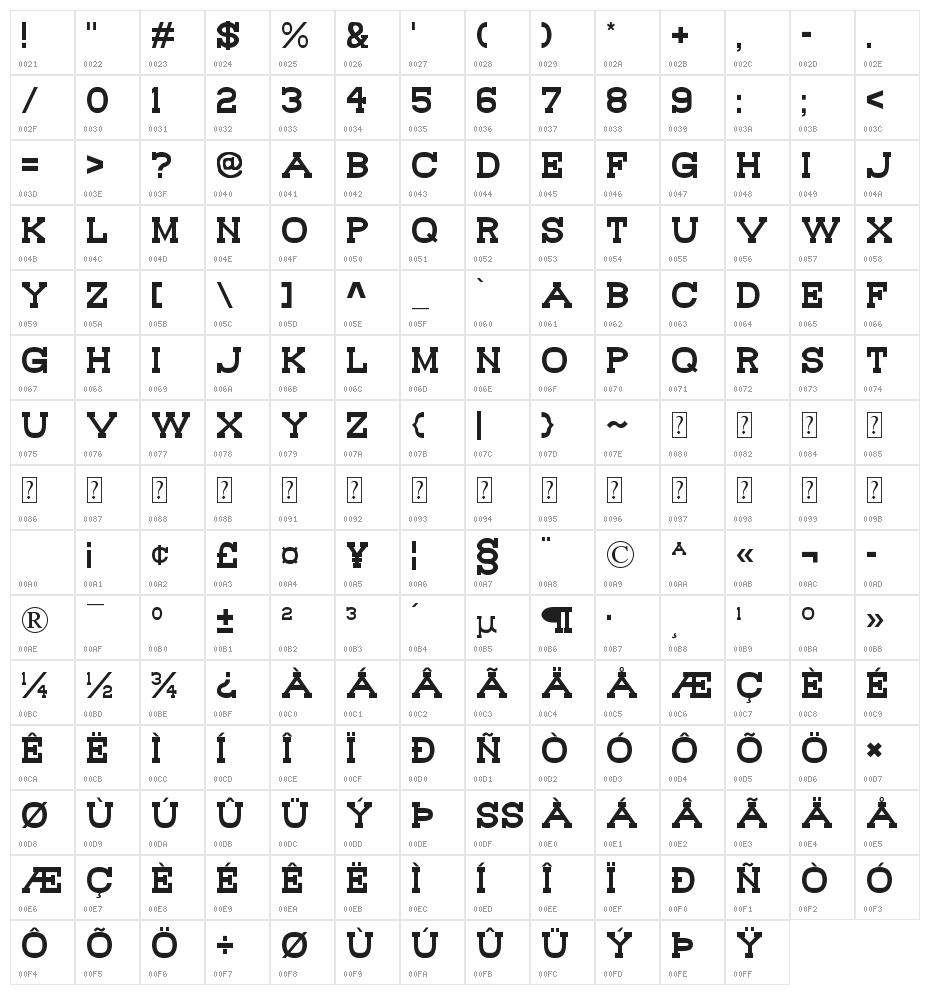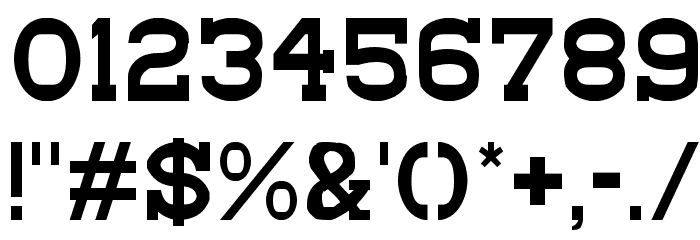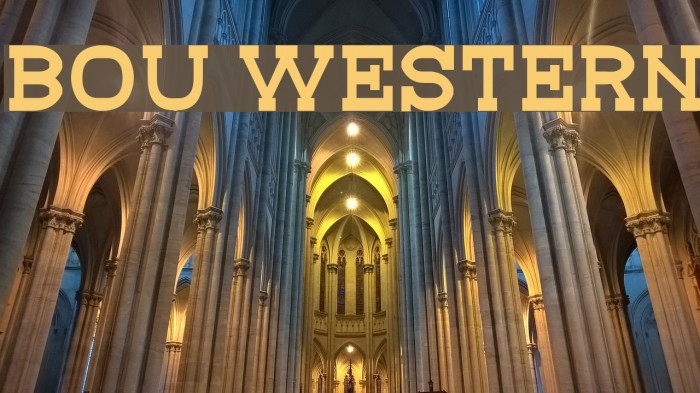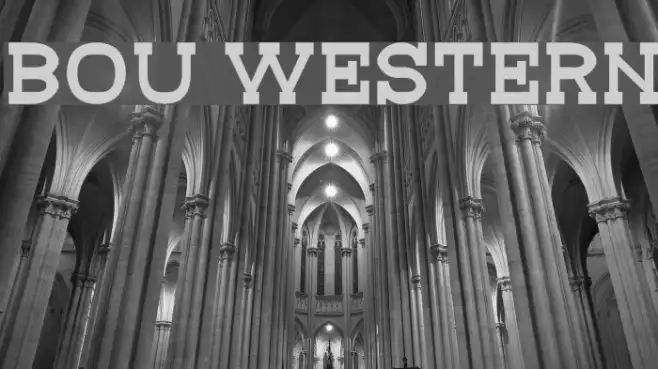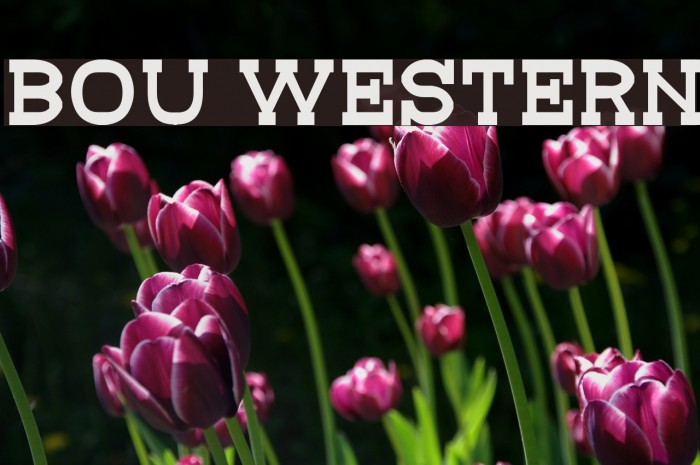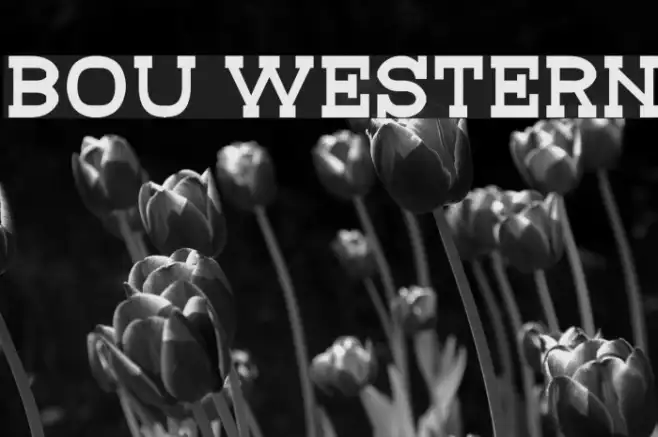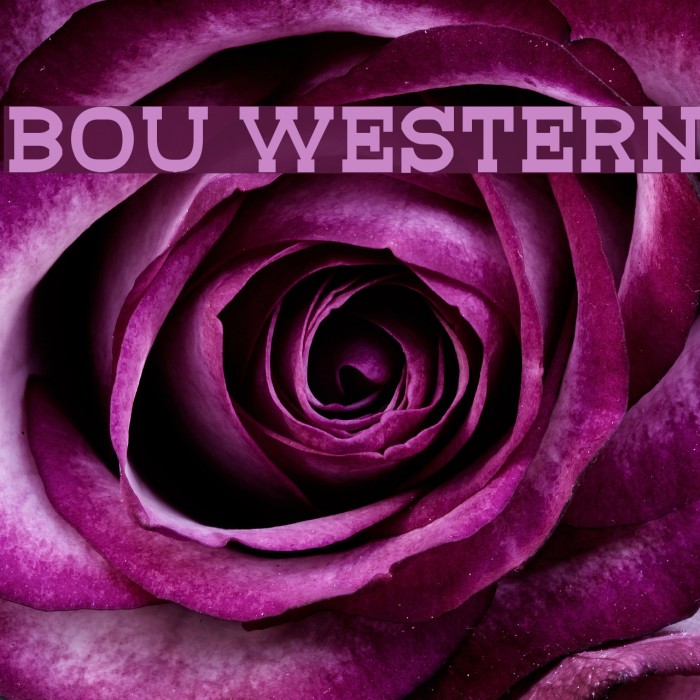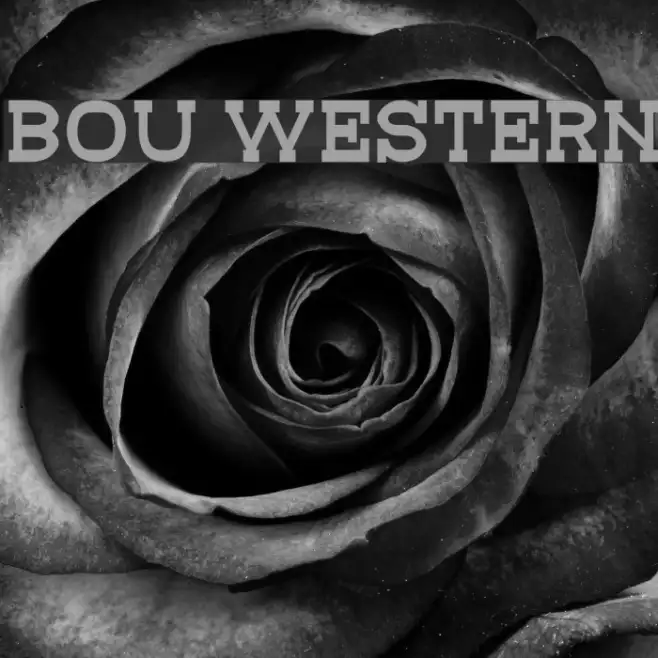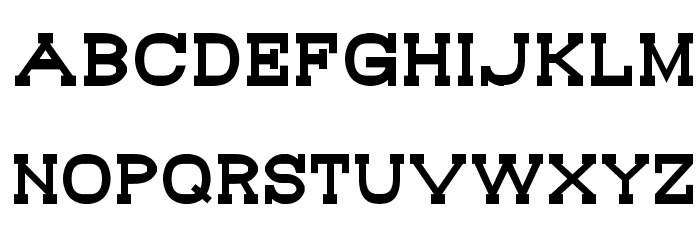
Bou Western Font
Bou Western Description
This font features bold, slab serif characters with a strong, robust appearance. The letters have a distinct Western flair, characterized by thick strokes and prominent serifs that evoke a sense of ruggedness and tradition. The uppercase and lowercase letters maintain a consistent style, with the uppercase being slightly more pronounced. Numbers are equally bold, ensuring readability and impact. Special characters are designed to match the overall aesthetic, making this font suitable for designs that require a touch of the Old West or a vintage, rustic feel.
BOU-WESTERN UPPERCASE
BOU-WESTERN LOWERCASE
BOU-WESTERN OTHER CHARS
| Proposed Projects | Ideal for posters, signage, branding, and any design needing a vintage Western touch. |